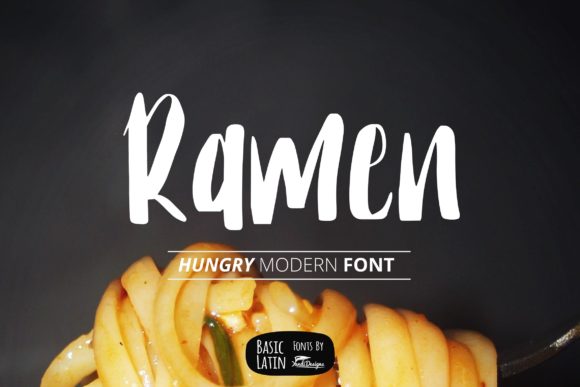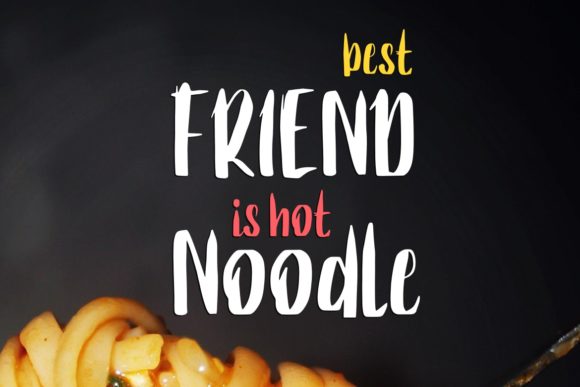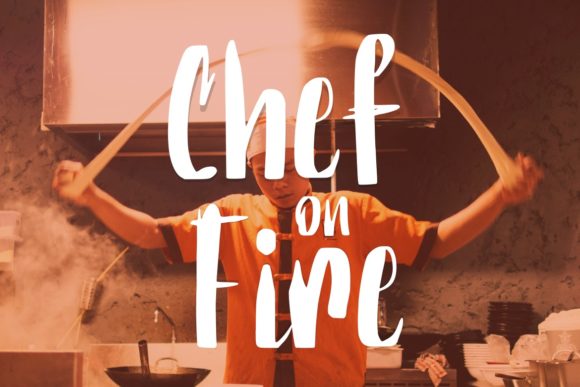
Ramen Font
About Ramen Font
Ramen is a delicious handwritten font. It will be the perfect choice for a wide variety of projects such as logos, posters, t-shirt & mug designs and whatever else.
Your next designs will stand out thanks to this quirky and lovable font.